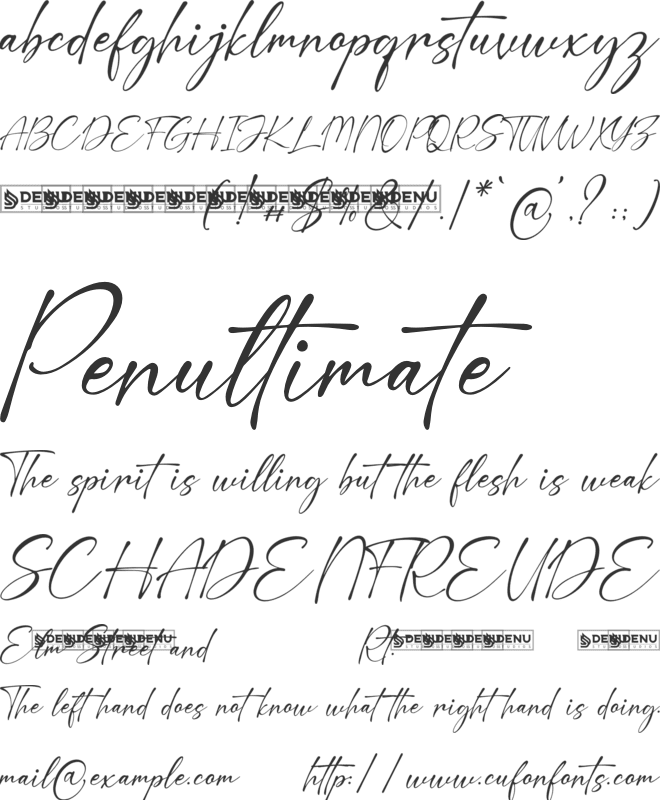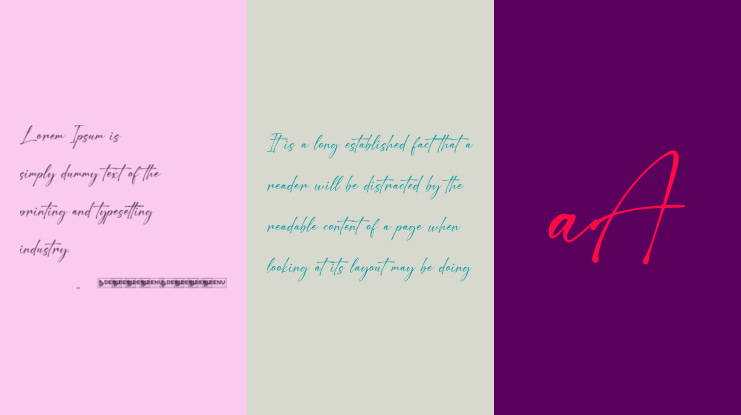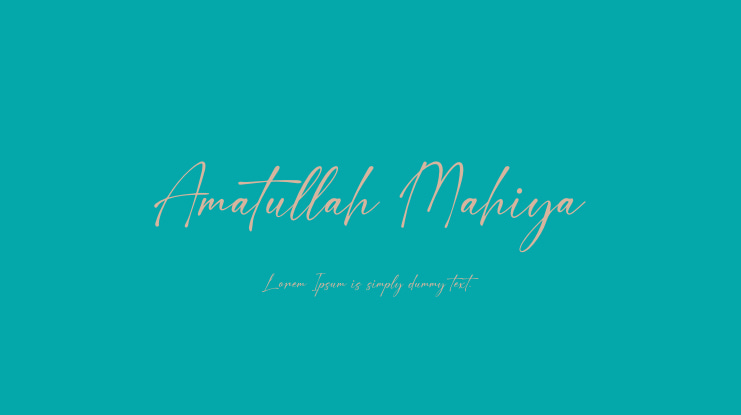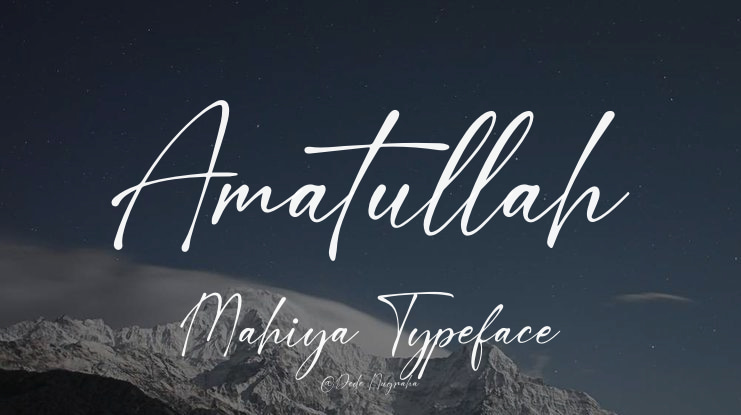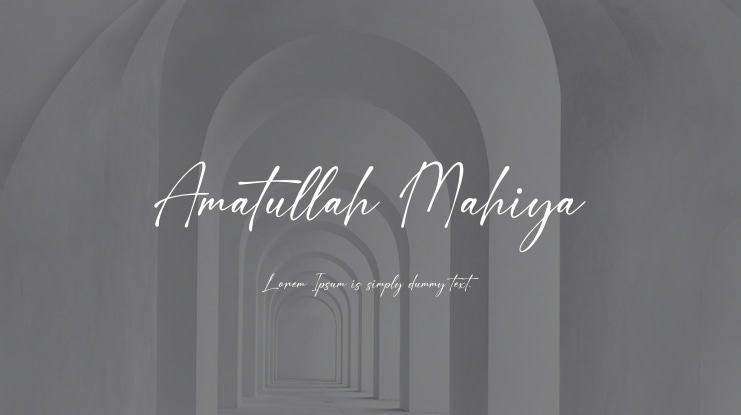
Amatullah Mahiya | Chic Calligraphy is suitable for any projects such as: logos, branding projects, homeware designs, product packaging, mugs, quotes, posters, shopping bags, t-shirts, book covers, name card, invitation cards, greeting cards, label, photography, watermark, special events, and all your other lovely projects that need a beautiful script taste.